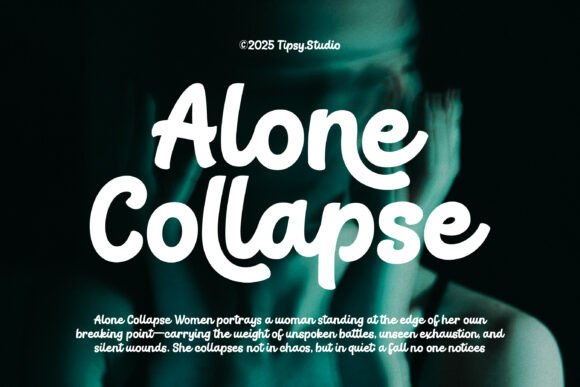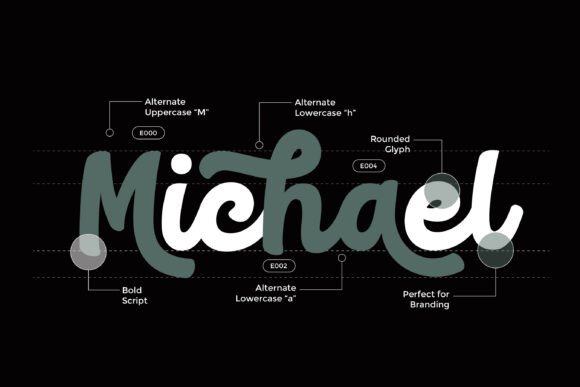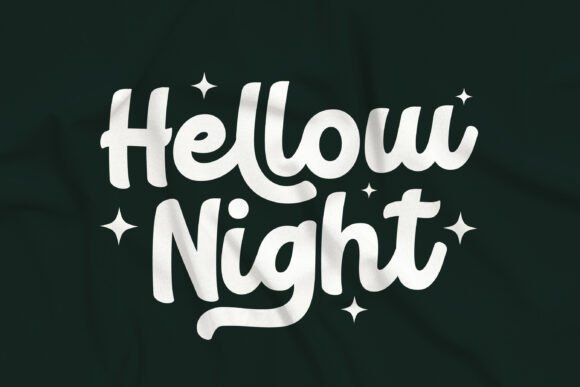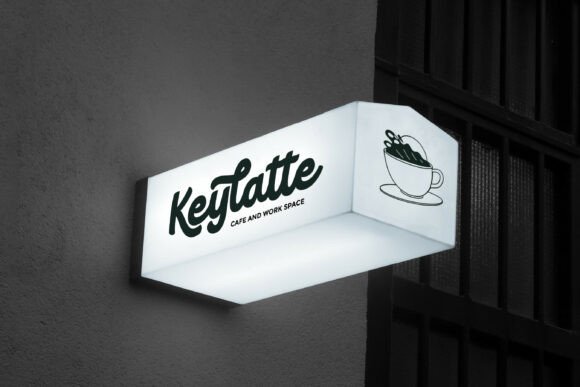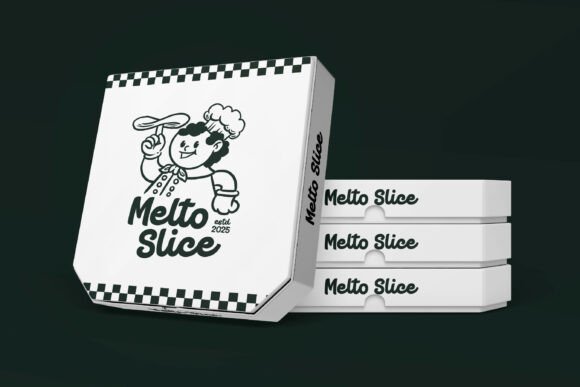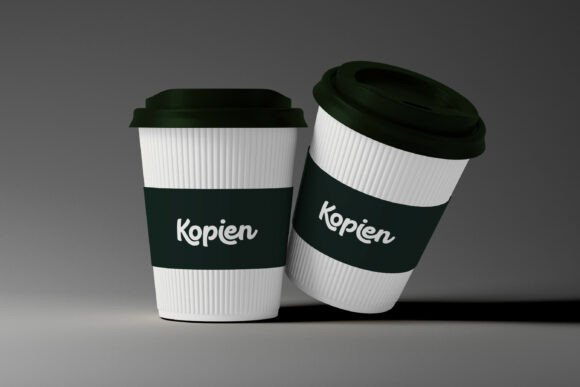
Introduction to Rachy Font
Rachy is a bold script font designed to deliver a strong, smooth, and confident handwritten feel.
With rounded strokes and flowing letterforms, Rachy combines modern elegance with a friendly and expressive personality Perfect for branding, logos, packaging, social media graphics, fashion designs, posters, quotes, and creative headlines, Rachy adds a natural and stylish touch that instantly stands out.
Key Features of Rachy Font
Why Choose Rachy Font?